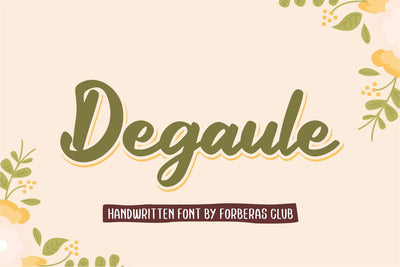
Degaule
Introducing Degaule Font by Forberas Club
Degaule is a Modern Handwritten Font. Degaule perfect for book cover, product packaging, branding project, megazine, social media, kisd book fonts, or just used to express words above the background. This font includes TTF and OTF, This font also multilingual support.